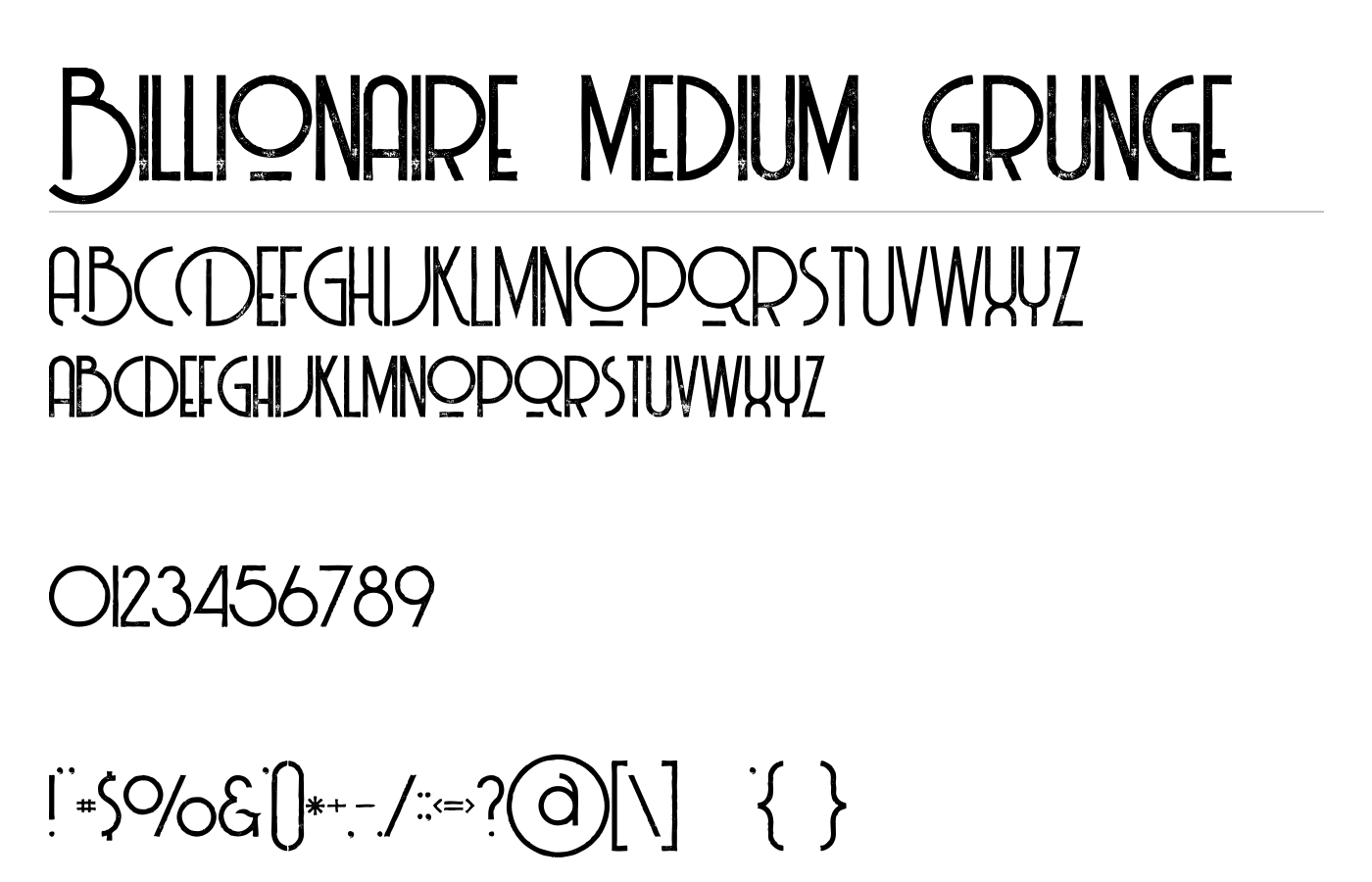
Billionaire Medium Grunge is a narrow, tall sans serif font with a distinctive rough, textured look that adds a gritty, vintage vibe. Its high contrast strokes and slightly irregular shapes give it a unique, edgy personality ideal for bold, creative headlines or branding that wants to stand out with a hand-crafted, artistic feel. This font works great in posters, logos, and editorial designs where a striking, unconventional style is needed.
Billionaire Medium Grunge Font
About Billionaire Medium Grunge Font
| Font family | Billionaire Medium Grunge Font |
| Designer | cruzine |